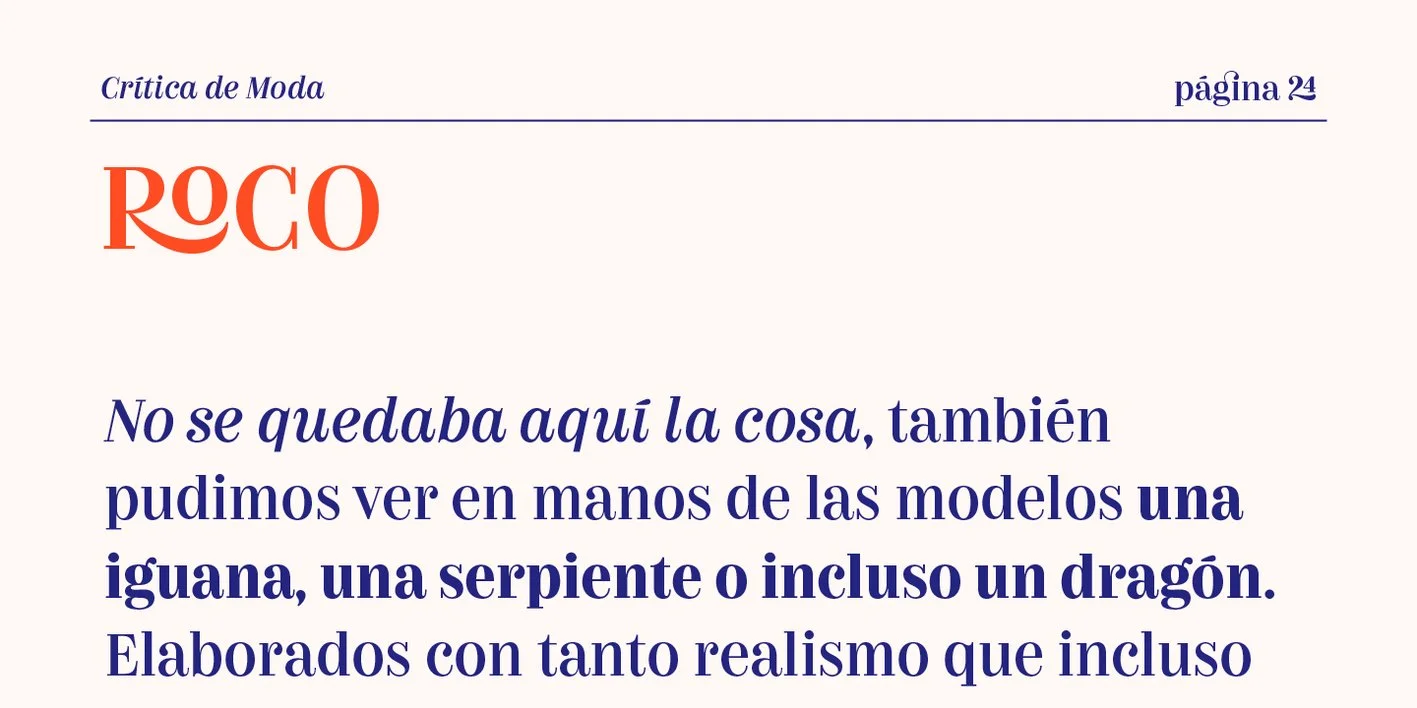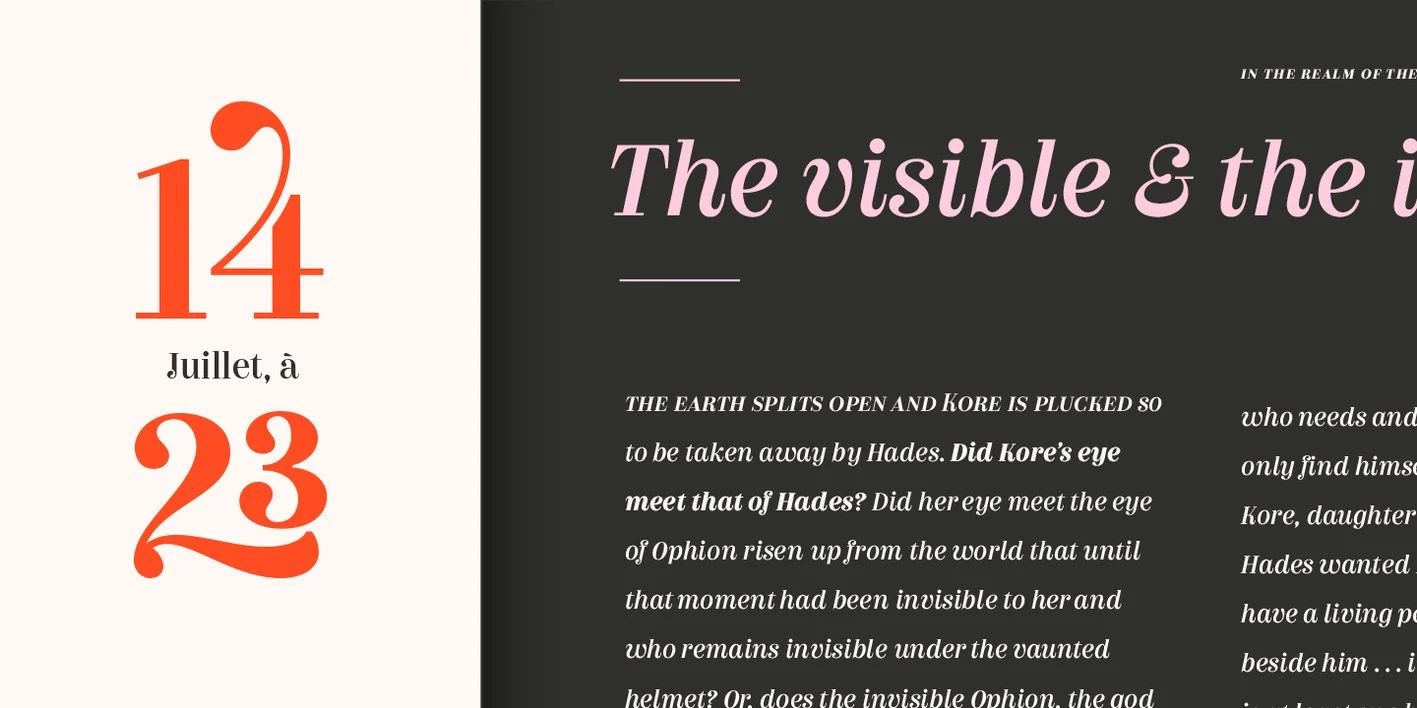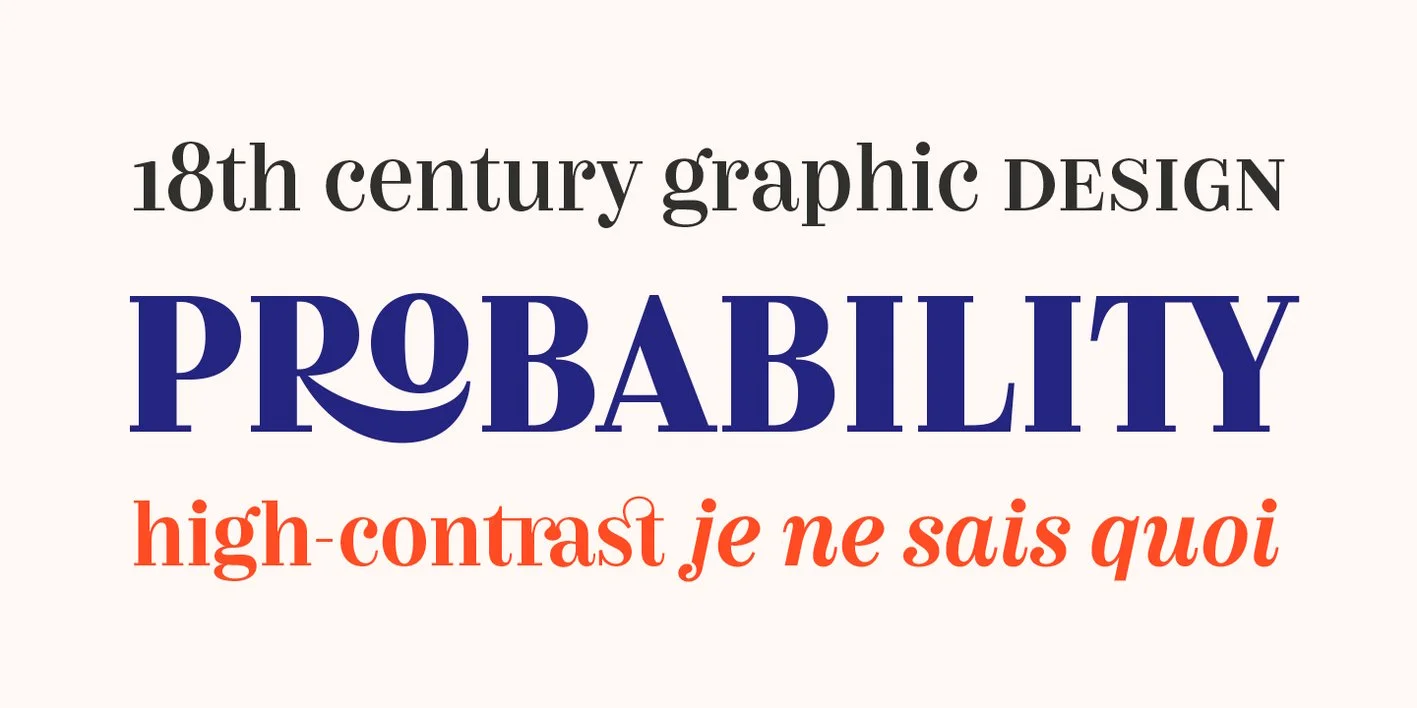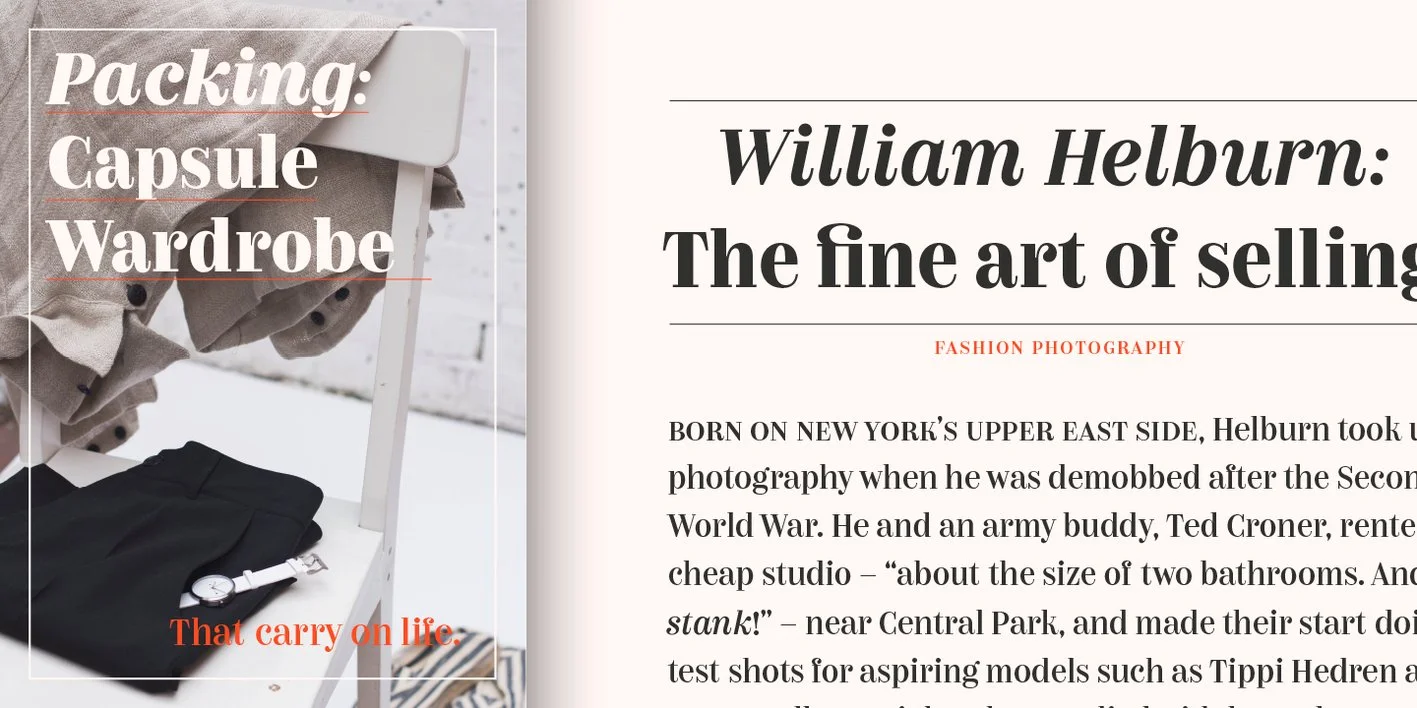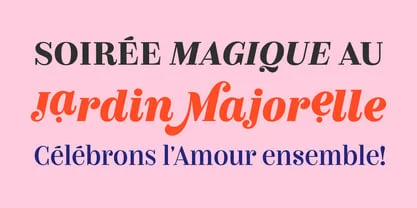
Couturier Font
There is a particular satisfaction in finding a typeface that delivers versatility across print and screen contexts without compromise. Couturier consistently provides it. The typeface brings a versatile sensibility to a broad range of creative disciplines, with strong typographic hierarchy support that holds up whether the work is print-first or screen-first.
In practice, Couturier proves particularly effective for annual reports, environmental graphics, logo design, poster creation, editorial layouts. Designers reaching for it find that the type decisions feel resolved rather than laboured — a useful quality when client timelines are tight.
The range of applications extends to advertising campaigns, social media graphics, brand identity systems, packaging design. That breadth is deliberate: the proportions and spacing were stress-tested across a wide range of mock briefs before the typeface was finalised.
Couturier sits comfortably alongside both classic and contemporary typefaces in multi-font hierarchies. It takes direction rather than competing for attention — a quality that experienced designers know is harder to find than it appears.
Graphic designers working on identity systems find Couturier a reliable choice for projects that demand both personality and restraint. The design avoids the self-conscious quirkiness that dates quickly, settling instead for considered distinctiveness that holds up over time.